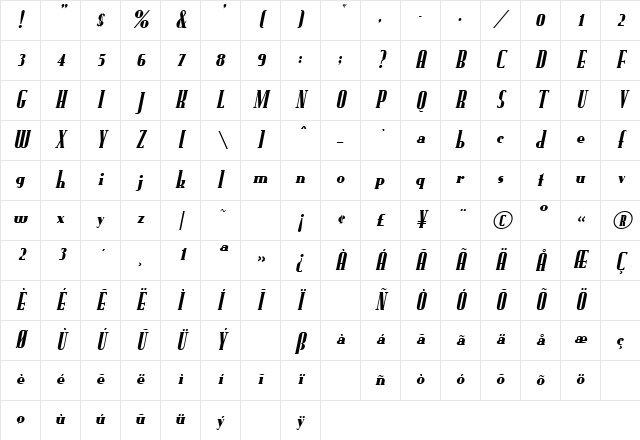
Risky Oblique
Design Context for Risky
Risky is a composed and adaptable typeface that performs quietly and consistently across a wide range of design contexts. The slanted form adds forward momentum and visual energy.
Pro Tip: Use Risky for emphasis, pull quotes, and subheadings where its slanted energy can add rhythm to the layout.